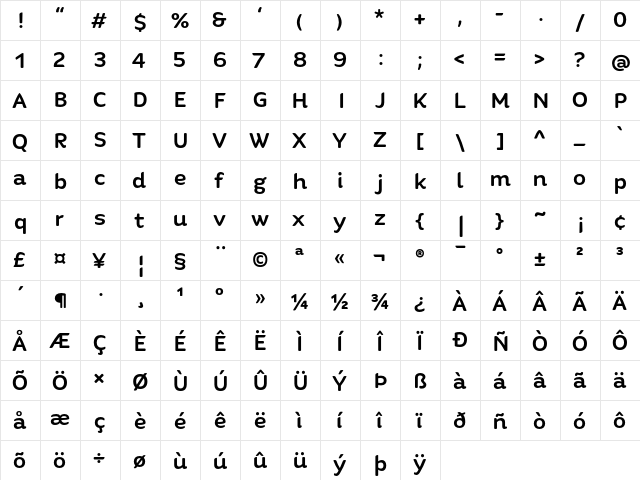
Quenda Medium
| Foundry | Marc Lohner |
| Designer | Marc Lohner |
Design Context for Quenda Typeface
Quenda takes a measured approach to typography — its balanced proportions and neutral character make it a reliable workhorse for both digital and print work.